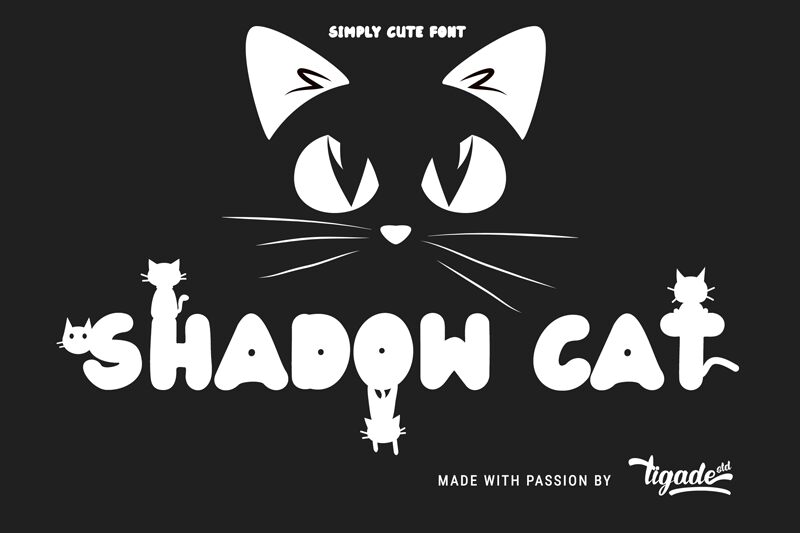
SHADOW CAT. It is extremely cute font inspired by a fat cat who like hiding in the dark.
This is a cute, happy, sweet font. It is suitable for branding, logo, kids related theme but not to forget CAT LOVERS.
Great for any (not limited to) Spring or Summer design. It is suitable for Logo, Cards, Branding, Social Media, Youtube Thumbnail, Advertisement, Posters, any many others.